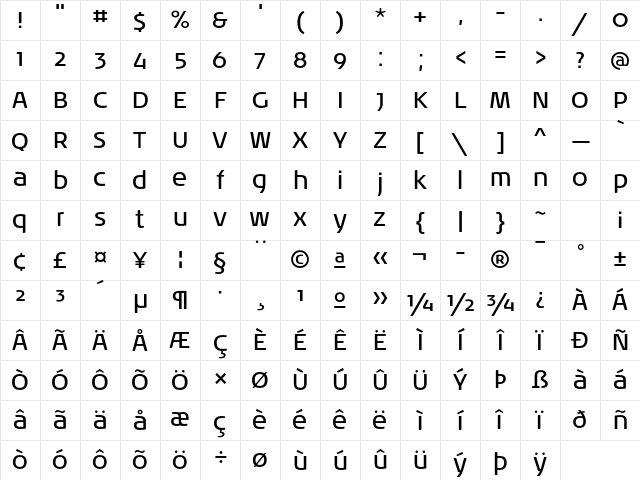
Noa LT Std Regular Free Font
Noa LT Std Regular
Designer: Nina Lee Storm
Design Context for Noa LT Std
Noa LT Std is a composed and adaptable typeface that performs quietly and consistently across a wide range of design contexts. Its slender proportions lend an understated elegance to any composition.